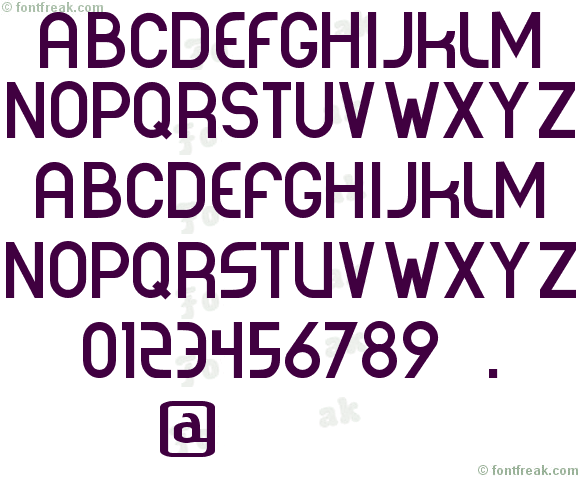
CORPOREA
Introducing CORPOREA, a striking display font designed by Grafito Design in November 2005. This unique typeface embodies a modern aesthetic with its clean lines and bold character, making it a standout choice for various creative projects. As a display font, CORPOREA is perfect for grabbing attention while maintaining readability, thanks to its thoughtful design and well-balanced proportions. The font features a medium stroke weight with minimal contrast, lending it a sturdy presence that exudes confidence and style. Its spacious letterforms allow for easy legibility, even at larger sizes, making it ideal for impactful headings and titles.
CORPOREA is particularly well-suited for use in a variety of applications. Graphic designers will find it perfect for creating eye-catching logos, while small business owners can utilize it in branding materials to enhance their visual identity. The font shines in concert posters, where its boldness can effectively convey excitement and energy. Additionally, it can elevate restaurant menus, providing a contemporary touch that appeals to a modern clientele. Content creators will appreciate its versatility, as it can be seamlessly integrated into digital graphics and social media posts.
Targeting graphic designers, small business owners, and content creators alike, CORPOREA offers a unique blend of style and functionality. Its distinctive visual characteristics and modern appeal make it a go-to choice for anyone looking to make a strong impression. For those interested in incorporating this exceptional typeface into their projects, the CORPOREA font free download is readily available, allowing you to explore its full potential without any cost. In a crowded font landscape, CORPOREA stands out with its contemporary design, making it an invaluable asset in any designer's toolkit.